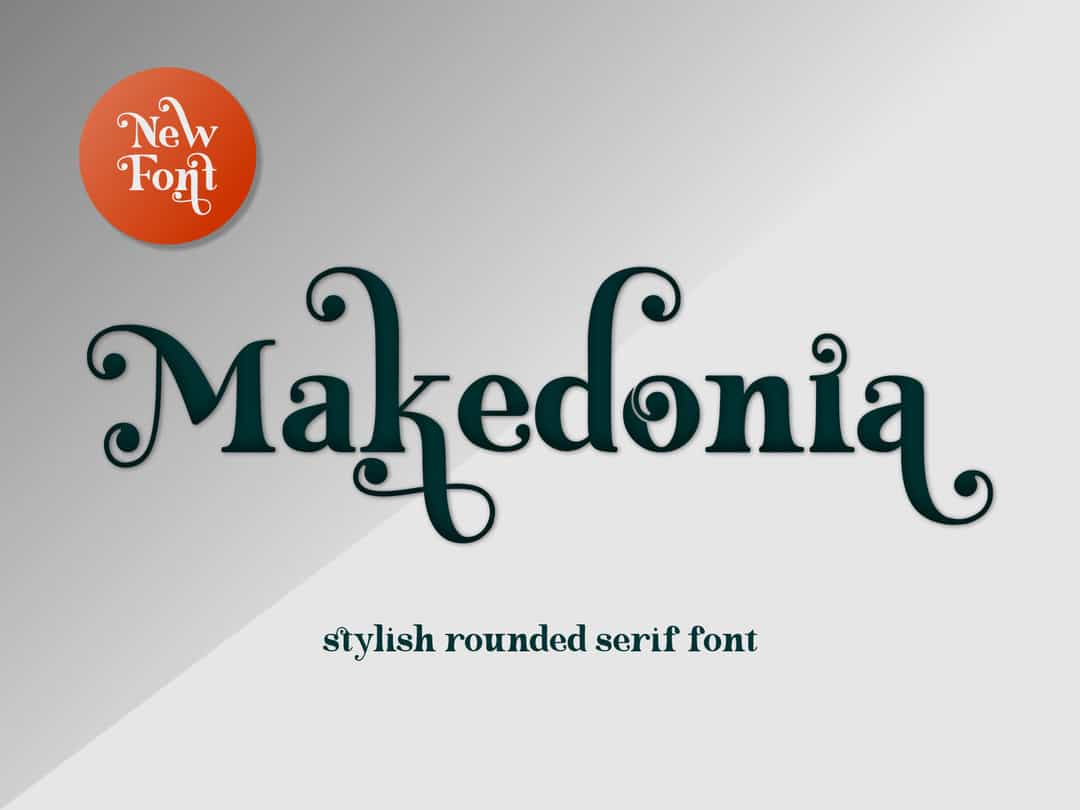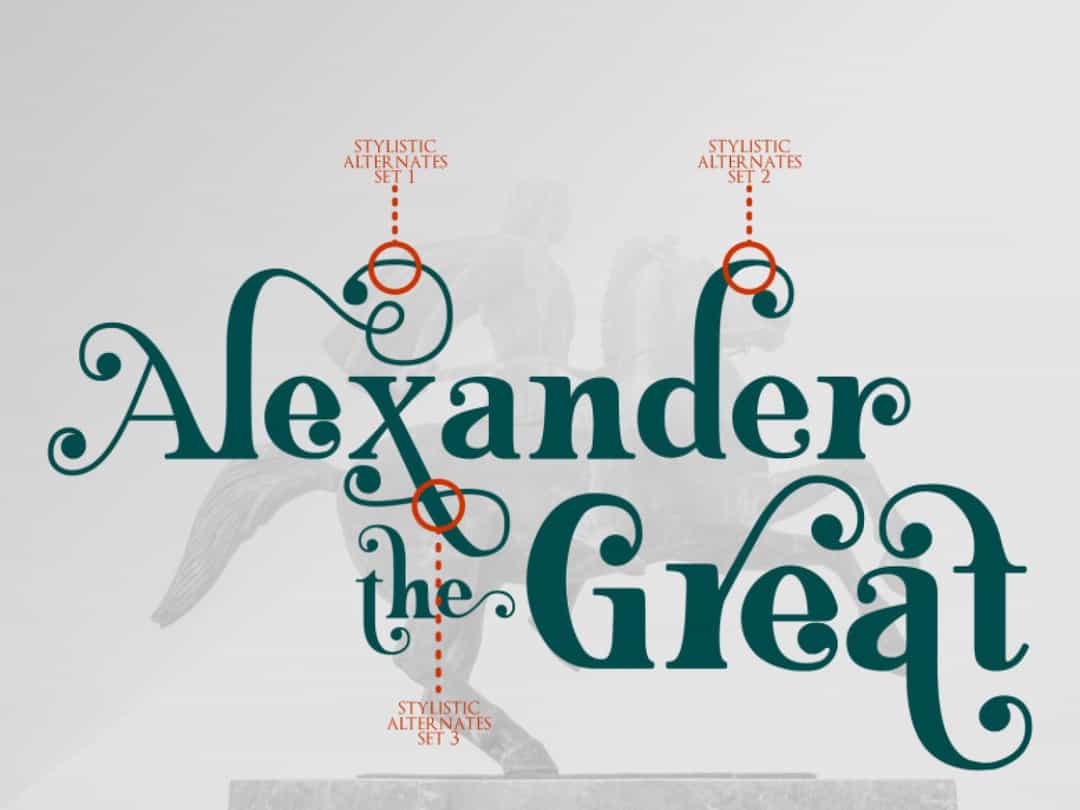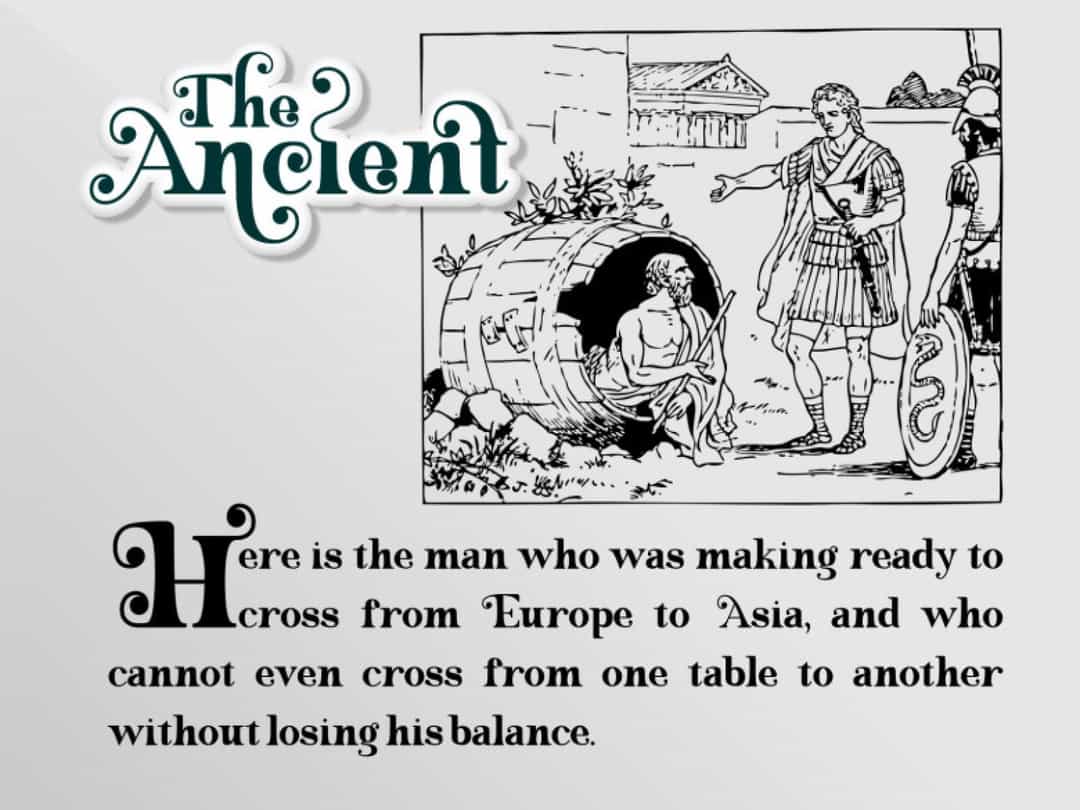
Makedonia is classic serif font with round letters that have both uppercase and lowercase alternate designs. The font has more than two hundred options that you can use, and combine to suit your taste; it even has beautiful graphic features!